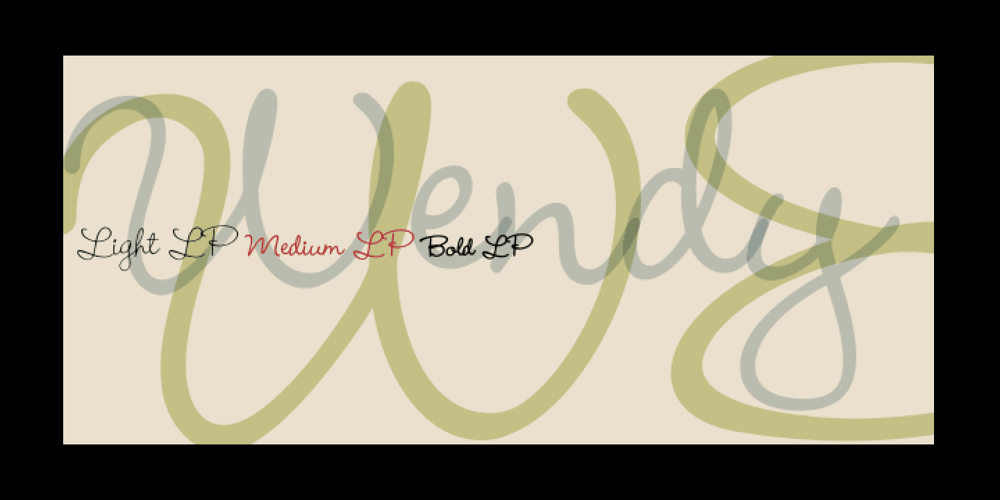
Wendy LP Font Family was designed by Garrett Boge and published by LetterPerfect. Wendy LP contains 3 styles and family package options. The Wendy family is a cursive script provided in three weights — Light, Medium and Bold. The design is an upright, casual handwriting style, with natural joins and connecting strokes. Wendy, in her various modes, projects a friendly persona, adding an approachable quality to headlines and short runs of text.